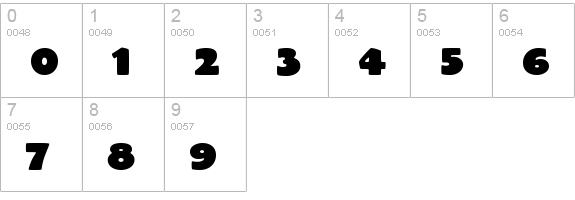
ElGrande font is a stylish and modern typeface that exudes elegance and sophistication. With its sleek lines and contemporary design, this font is perfect for creating eye-catching designs that demand attention. Whether used for branding, headlines, or other creative projects, ElGrande font is sure to make a bold statement. What sets ElGrande font apart is not just its striking appearance, but also the fact that it is available for free download at FontsMarket.com. This means that you can easily access this beautiful font and incorporate it into your projects without any cost. Embrace the versatility and creativity that ElGrande font offers, and elevate your design work to the next level. Download ElGrande font today and let your creativity shine!